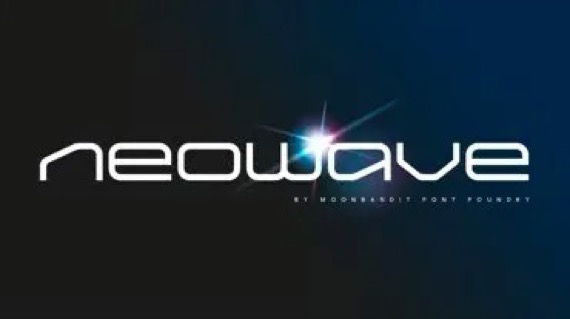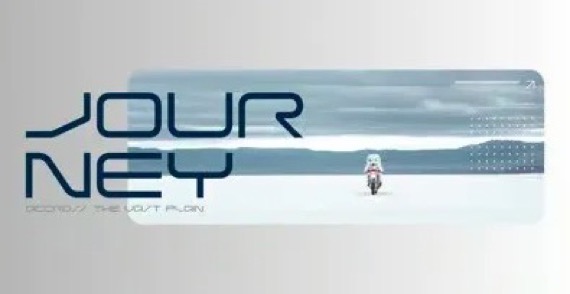
MBF Neo Wave is a classy and modern techno display font family that was designed by Bramaji Dipa Manggala and published by Moonbandit. Neo wave is a futuristic scifi display font. Wide and rounded typeface design with a modern minimalist approach. Perfect usage includes logo, poster, display, headline, t-shirt design and many more.
MBF Neo Wave Display Font